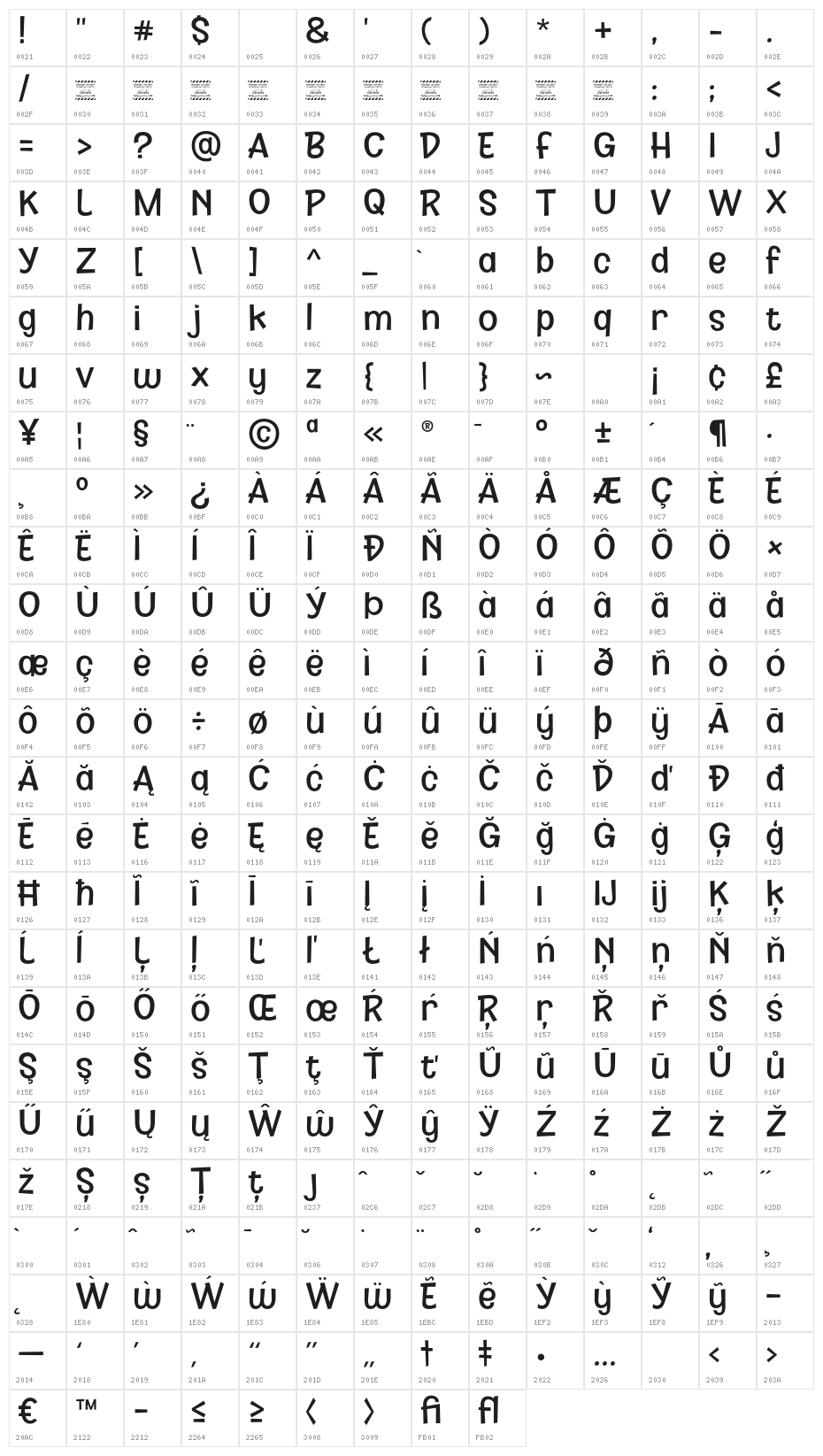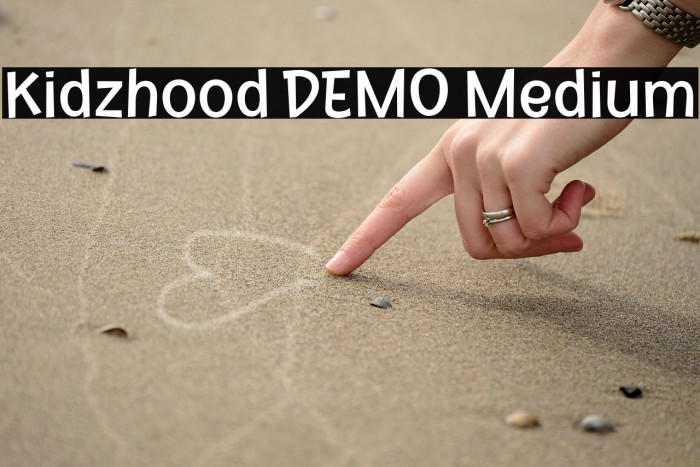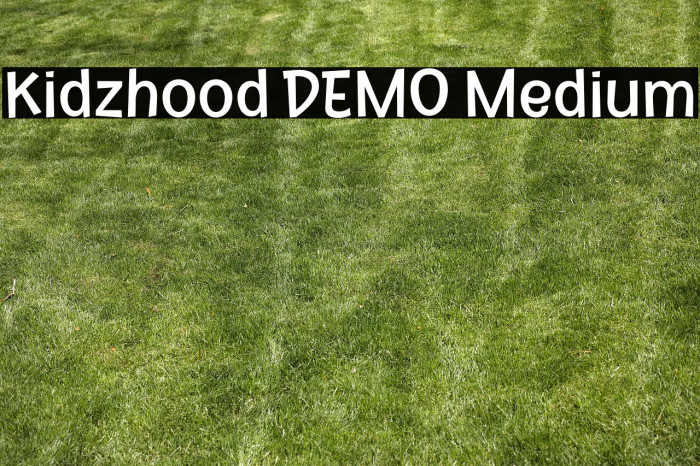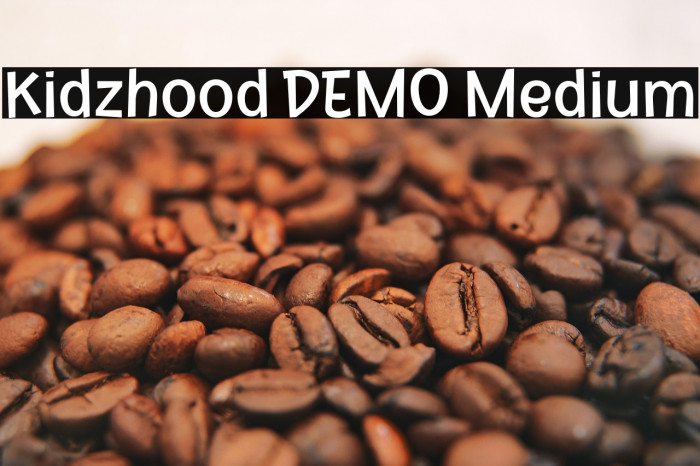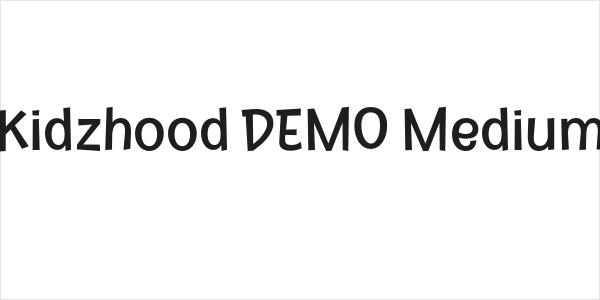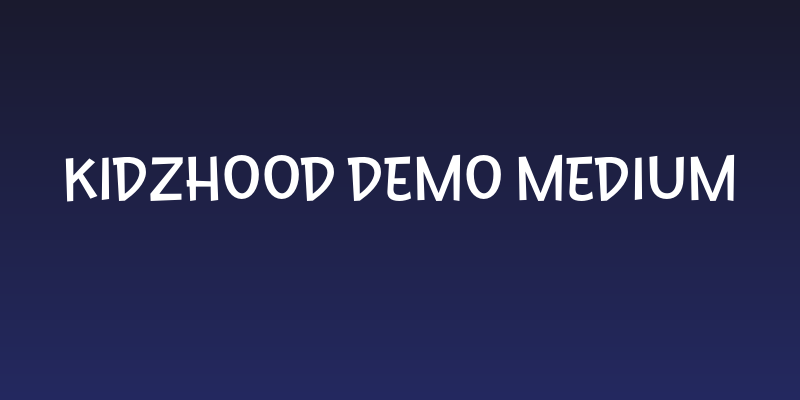
Kidzhood DEMO Medium Font
Kidzhood DEMO Medium Description
This playful and whimsical font features a hand-drawn aesthetic with irregular, slightly tilted characters that convey a sense of fun and creativity. The letters are bold and rounded, with a casual, informal style that makes them appear friendly and approachable. The font maintains a consistent stroke width, giving it a uniform appearance despite its quirky design. The characters are well-spaced, ensuring readability while retaining their unique charm. This font is ideal for projects that aim to capture a youthful or playful spirit.
| Proposed Projects | Children's books, educational materials, playful branding, party invitations, and creative posters. |